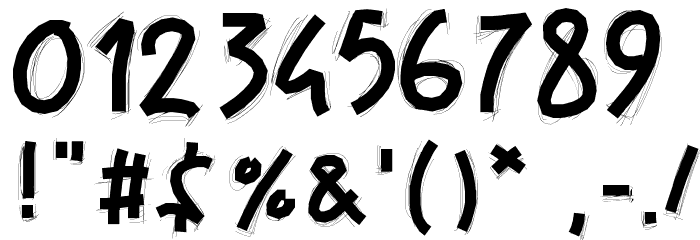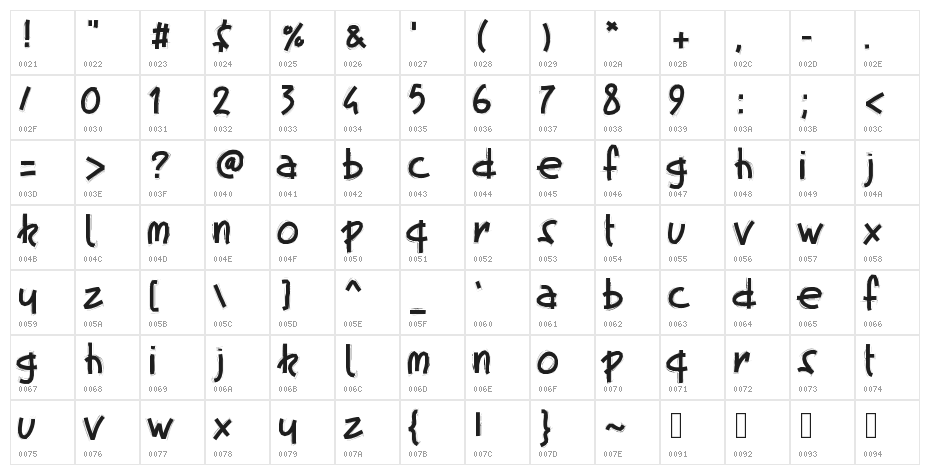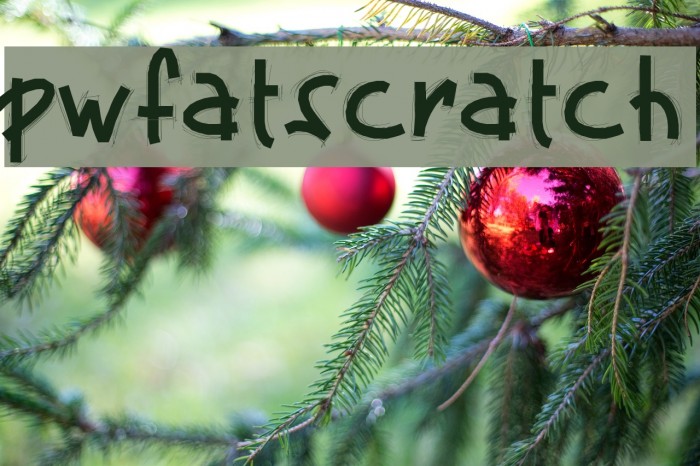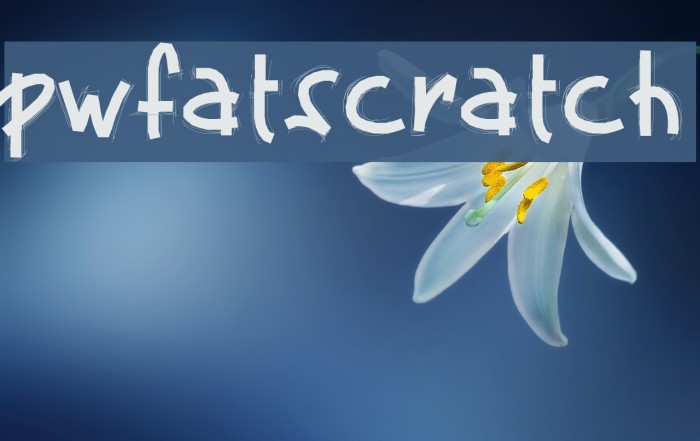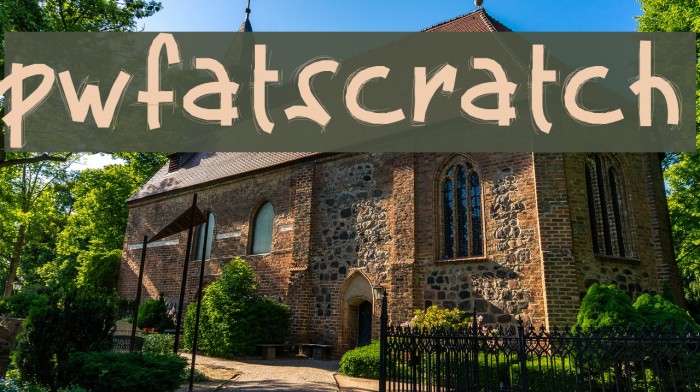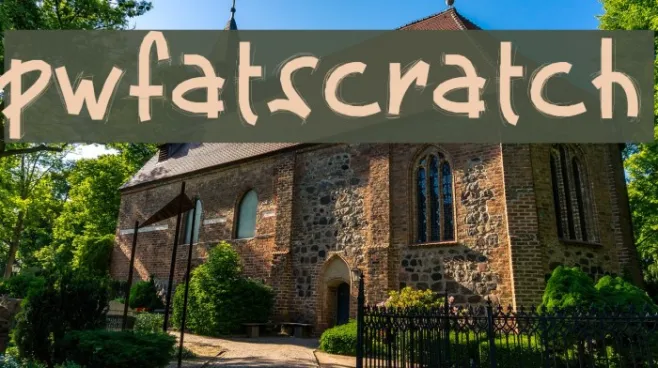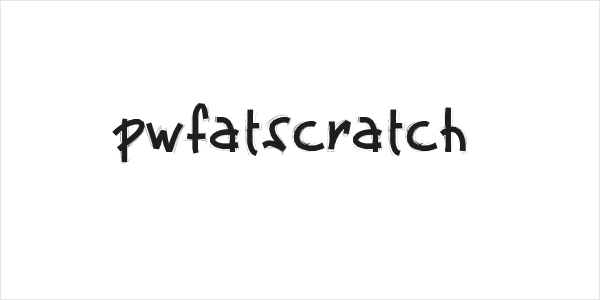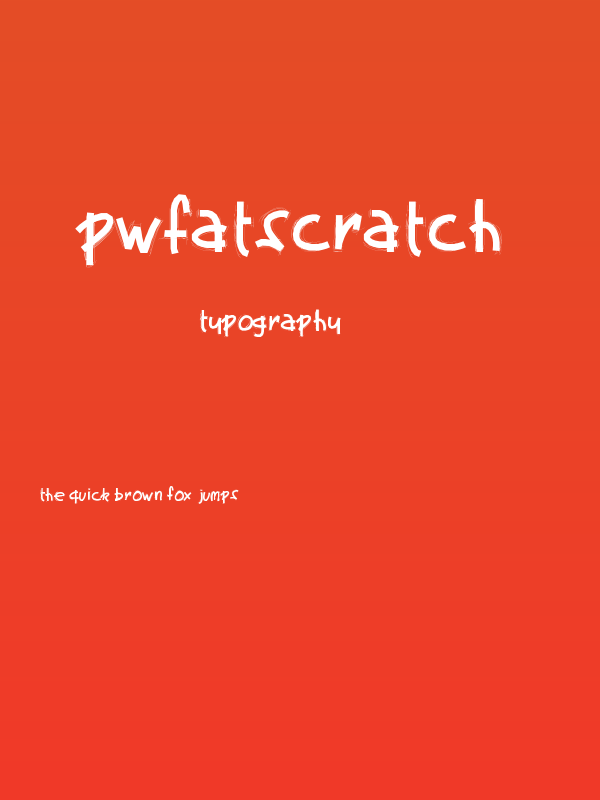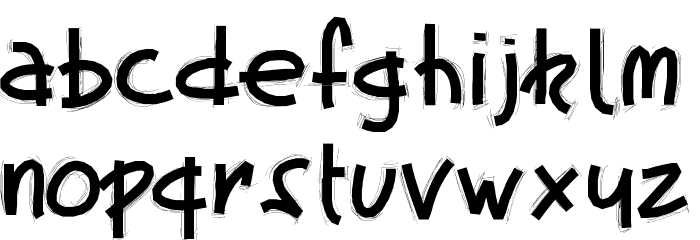
PWFatscratch Font
PWFatscratch Description
This font exhibits a playful and energetic style, characterized by its bold and scratchy appearance. The letters have a hand-drawn quality, with uneven strokes and a slightly distressed look that adds to its dynamic feel. The uppercase and lowercase letters maintain a consistent style, with exaggerated curves and angles that give the font a lively personality. Numbers and special characters are equally expressive, making this font suitable for creative and informal designs. Its unique style makes it stand out, perfect for projects that require a touch of whimsy and individuality.
| Proposed Projects | Ideal for posters, children's book covers, playful branding, and artistic projects. |